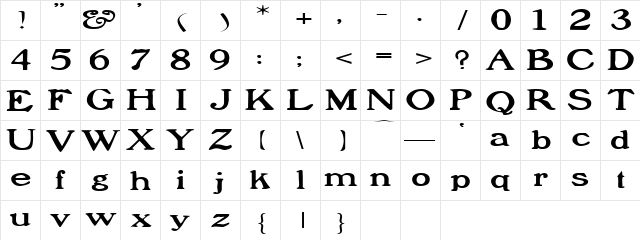
ProphetExtended Regular
Design Context for ProphetExtended Typeface
ProphetExtended offers clean, dependable letterforms without strong stylistic allegiance, making it a practical choice for designers who need flexibility.